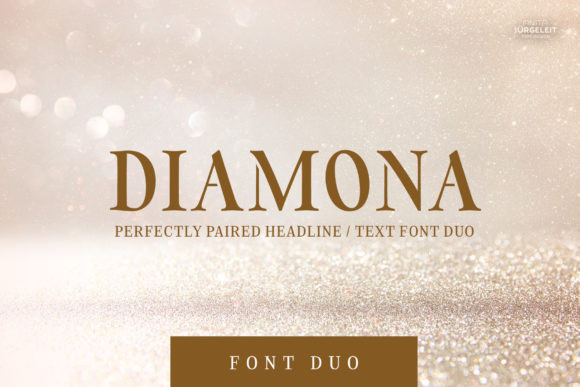
Diamona Font
Diamona is a bold and authentic serif font. Elegantly designed to become a true favorite, this font has the potential to bring each of your creative ideas to the highest level!